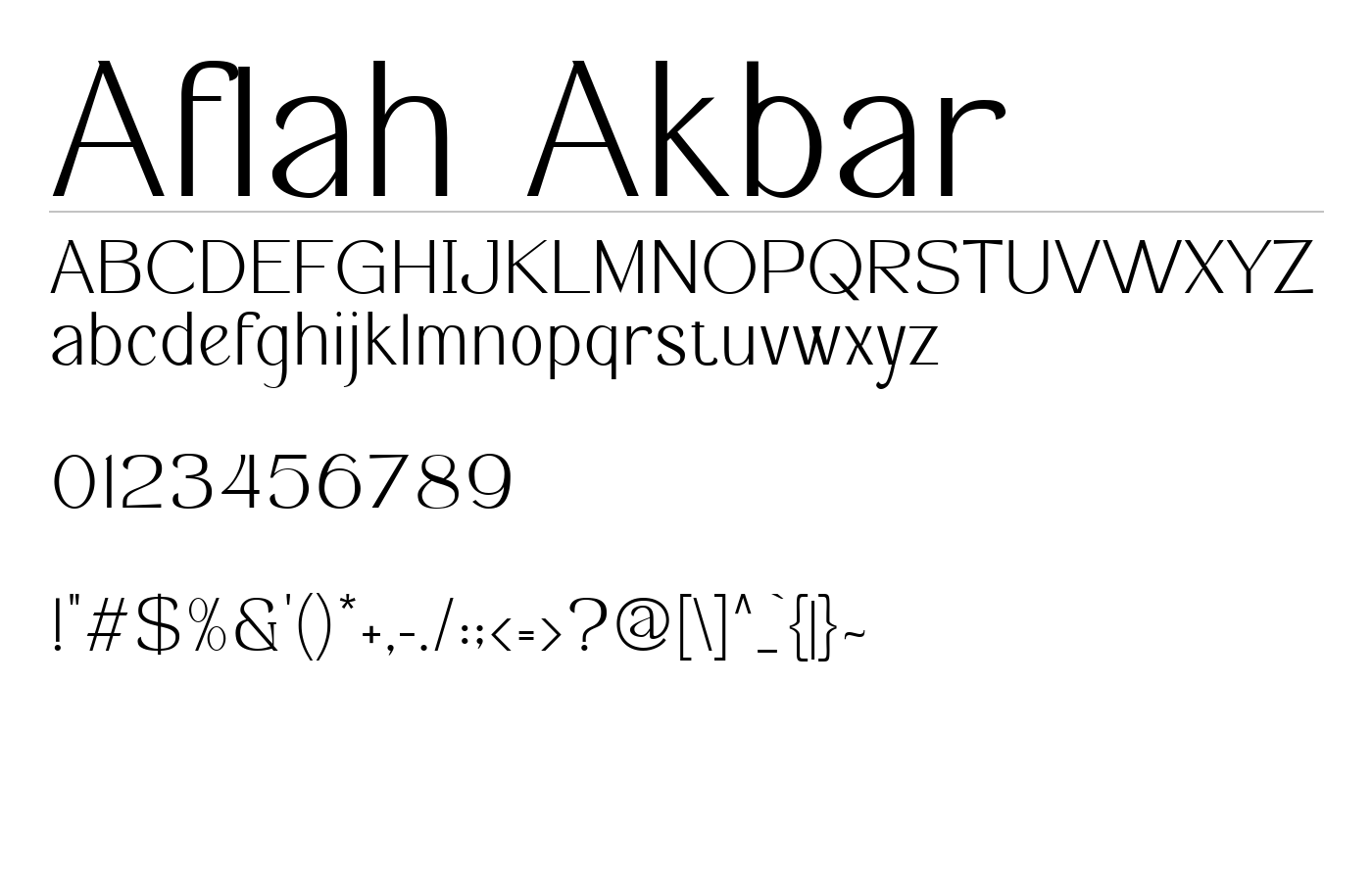
Aflah Akbar is a sleek serif font with a modern twist, featuring thin, high-contrast strokes and a tall x-height that creates a refined, elegant look. Its delicate serifs and slight calligraphic touches give it a sophisticated, literary feel, making it ideal for upscale branding, editorial design, and stylish headlines. This font combines readability with grace, perfect for projects that seek a clean yet distinctive charm.
Aflah Akbar Font
About Aflah Akbar Font